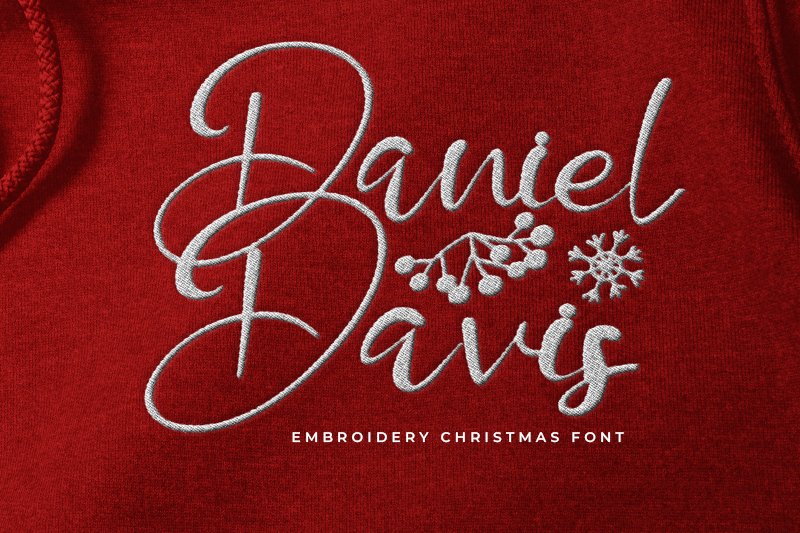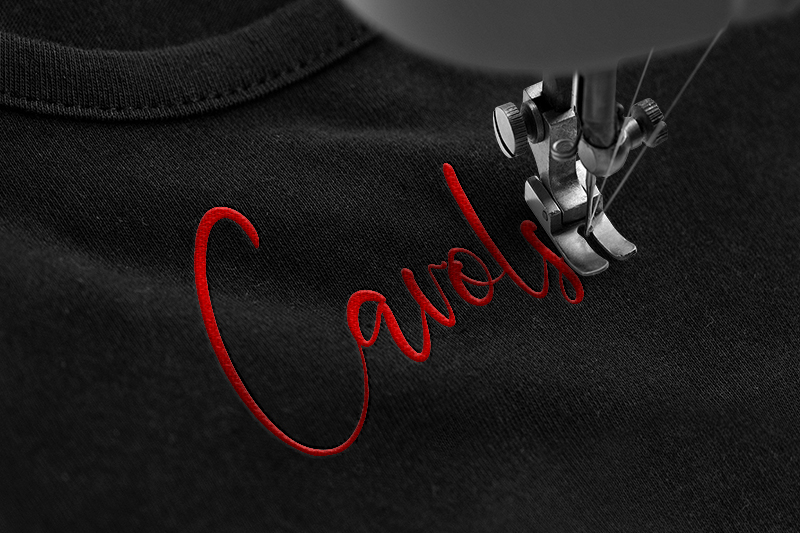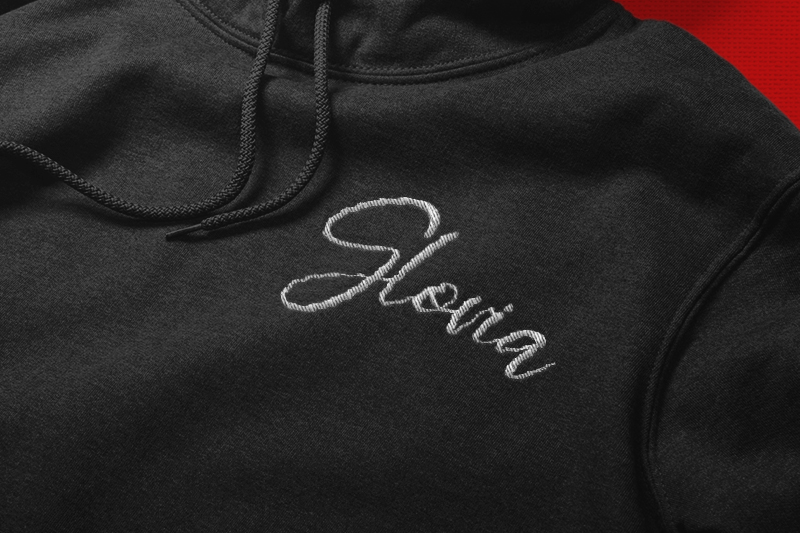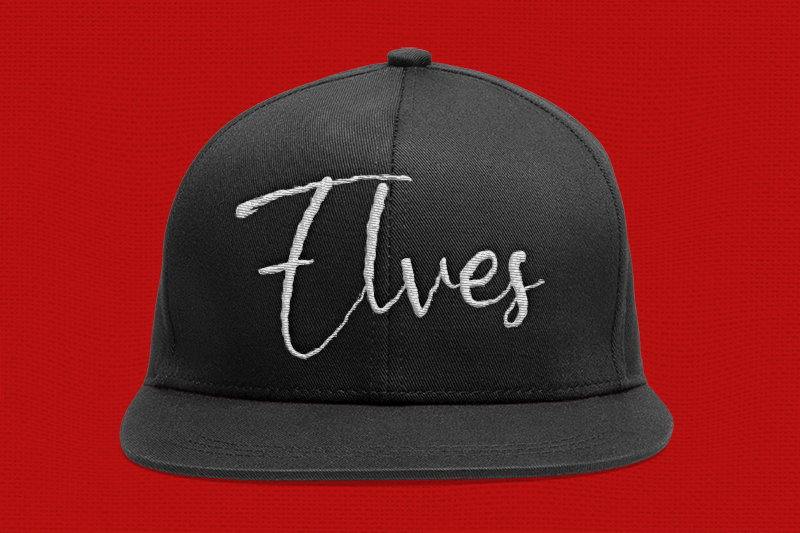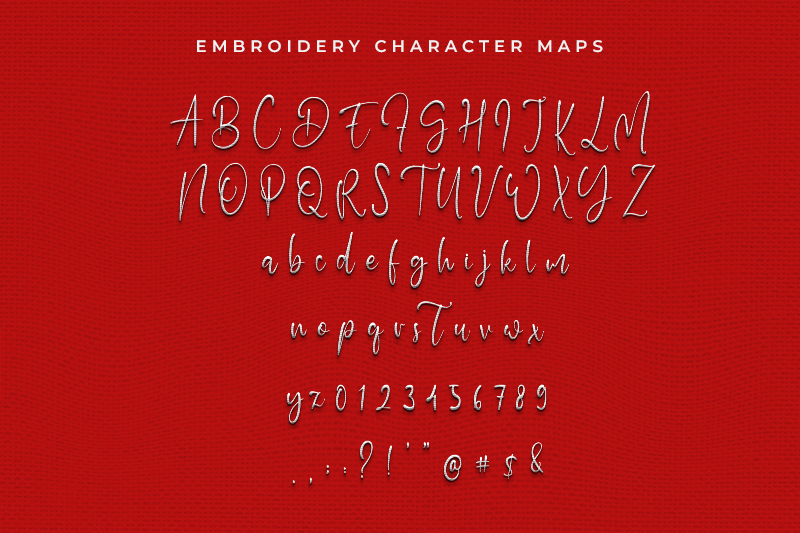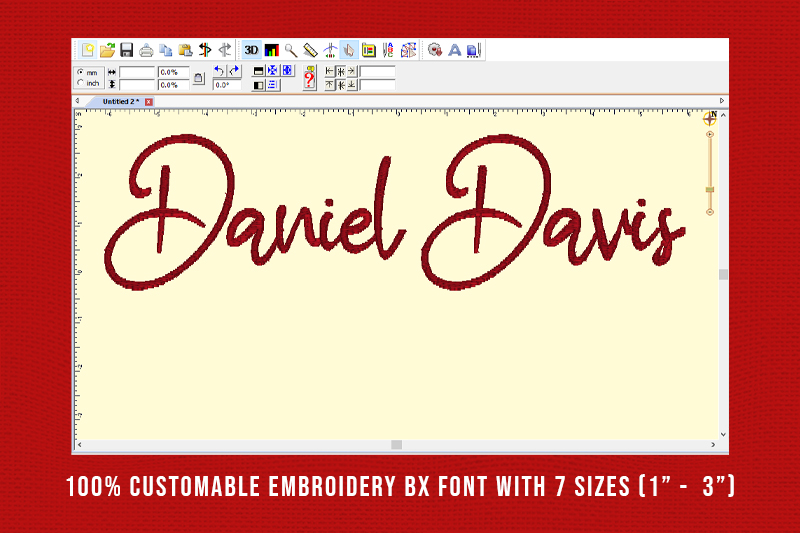
Daniel Davis Embroidery Font
Daniel Davis Embroidery Font is a new creation made as attractive as possible by adding the best variations of the Christmas embroidery font. This font is here to provide another reference for those who are interested in using embroidery fonts to welcome or celebrate Christmas. Yellow craft font has a characteristic, which is a unique shape and is rarely in other font forms. The figure is curved and has additional lines at the ends of some letters. Even though the body is unique, this font is legible. The appearance of this font is perfect when embroidered with medium font size and delicate embroidery.
Daniel Davis Embroidery Font certainly has high usability when used on products. This font creates the unique and fun feel of the brand it comes from. This typeface is the best Christmas font to use for t-shirts, jackets, hoodies, and hats. Daniel Davis Embroidery Font can be embroidered as wall hangings and souvenir bags for important events, such as Christmas parties. This font can give a simple, unique, and modern impression at the same time. Daniel Davis Embroidery Font is also suitable for hand-stitched items, such as tablecloths and home wall hangings.